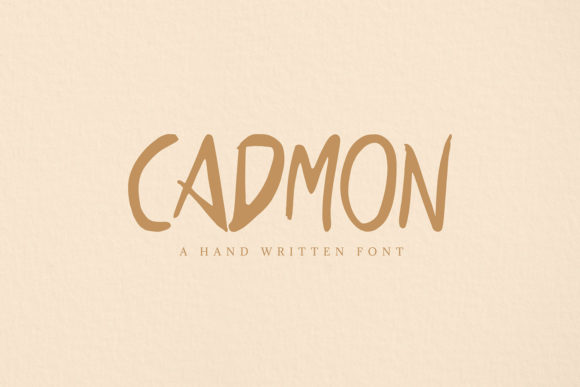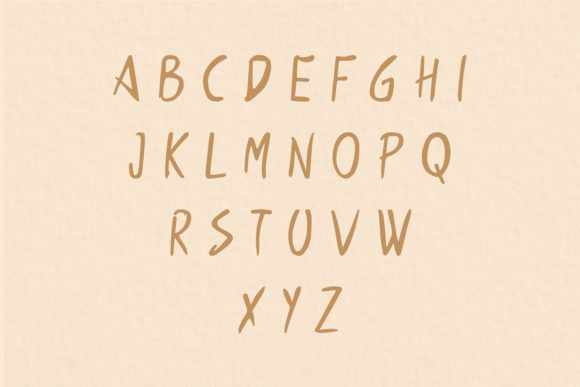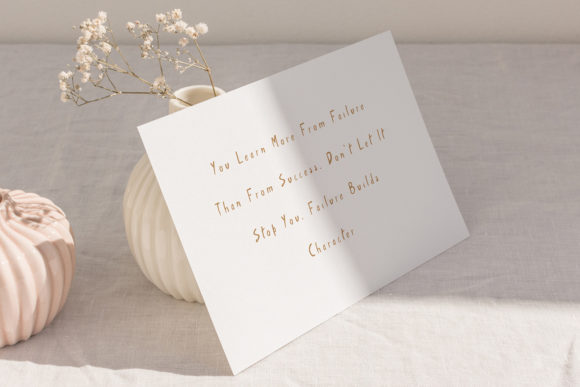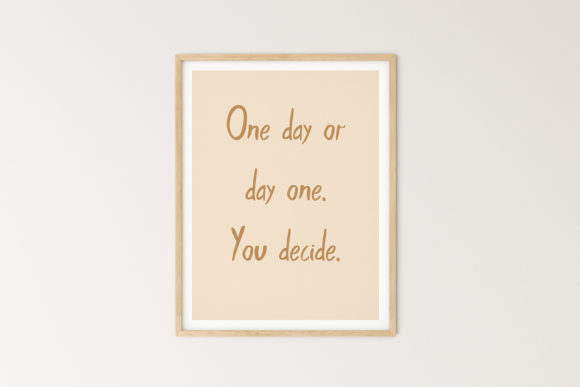
Cadmon Font
About Cadmon Font
Cadmon is a relaxed, simple and brushed handwritten font. No matter the topic, this font will be an incredible asset to your fonts’ library, as it has the potential to elevate any creation.